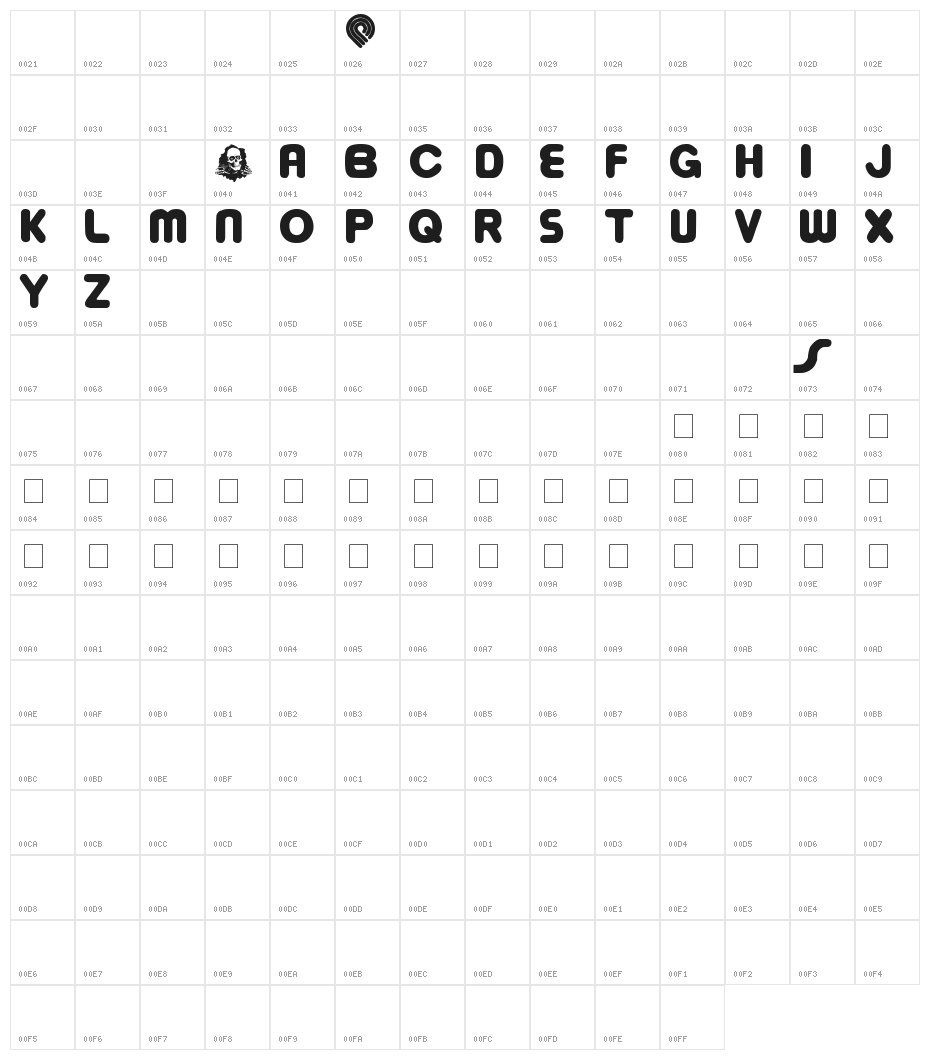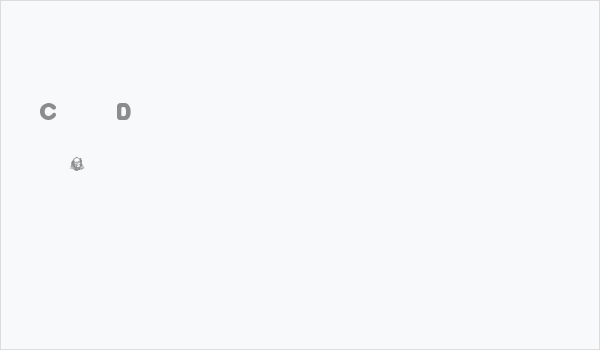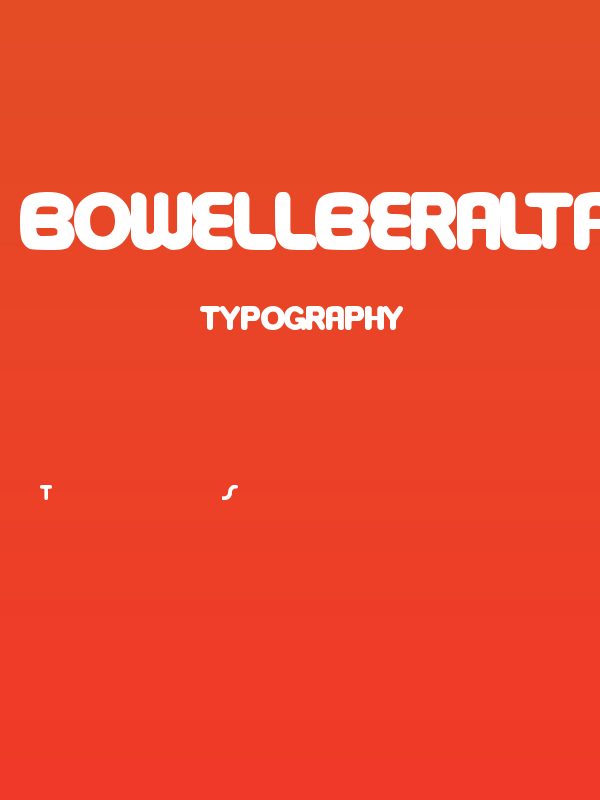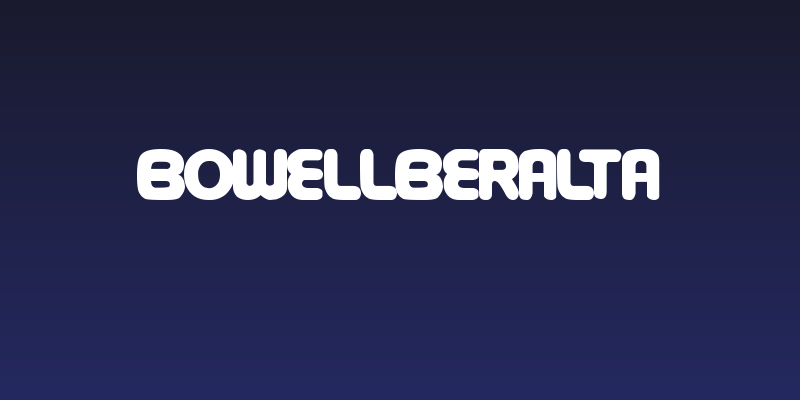
bowellberalta Font
bowellberalta Description
This font features bold, rounded characters with a distinctly modern and playful style. The uppercase letters are uniformly thick, creating a strong visual impact, while the lowercase letters maintain the same boldness with a slightly more compact form. The numbers and special characters are consistent with this bold, rounded aesthetic, ensuring a cohesive look across all text. The overall design is clean and approachable, making it suitable for a variety of creative applications. The font's unique style is particularly well-suited for projects that require a friendly and contemporary feel.
| Proposed Projects | Ideal for branding, packaging, children's books, and playful advertising campaigns. |